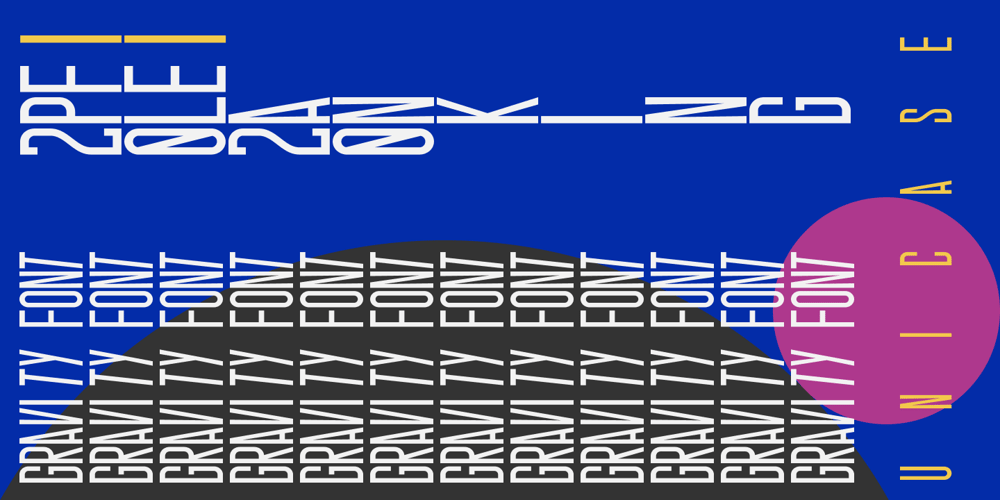
FE Planking 2020 Font Family was designed by Egor Stremousov and published by Egor Stremousov. FE Planking 2020 contains 1 styles and family package options. Experimental and accidental unicase grotesque. A font in which all the letters and numbers fell down and deformed under the force of gravity. Everything that was hanging fell down. Everything that was curved horizontally straightened. The form and principle of construction of each symbol in the font is dictated not by tradition, but by physics.This makes FE Planking 2020 an excellent tool for creating phrases and statements in advertising and art projects that attract attention and make your head spin.The first free version with a minimum set of Latin and Cyrillic alphabets was released in 2019, and in 2020 the font was updated and supplemented with an expanded set of characters.Dedicated to @Serge Rachok, who invented the Planking Game before it was invented by others.